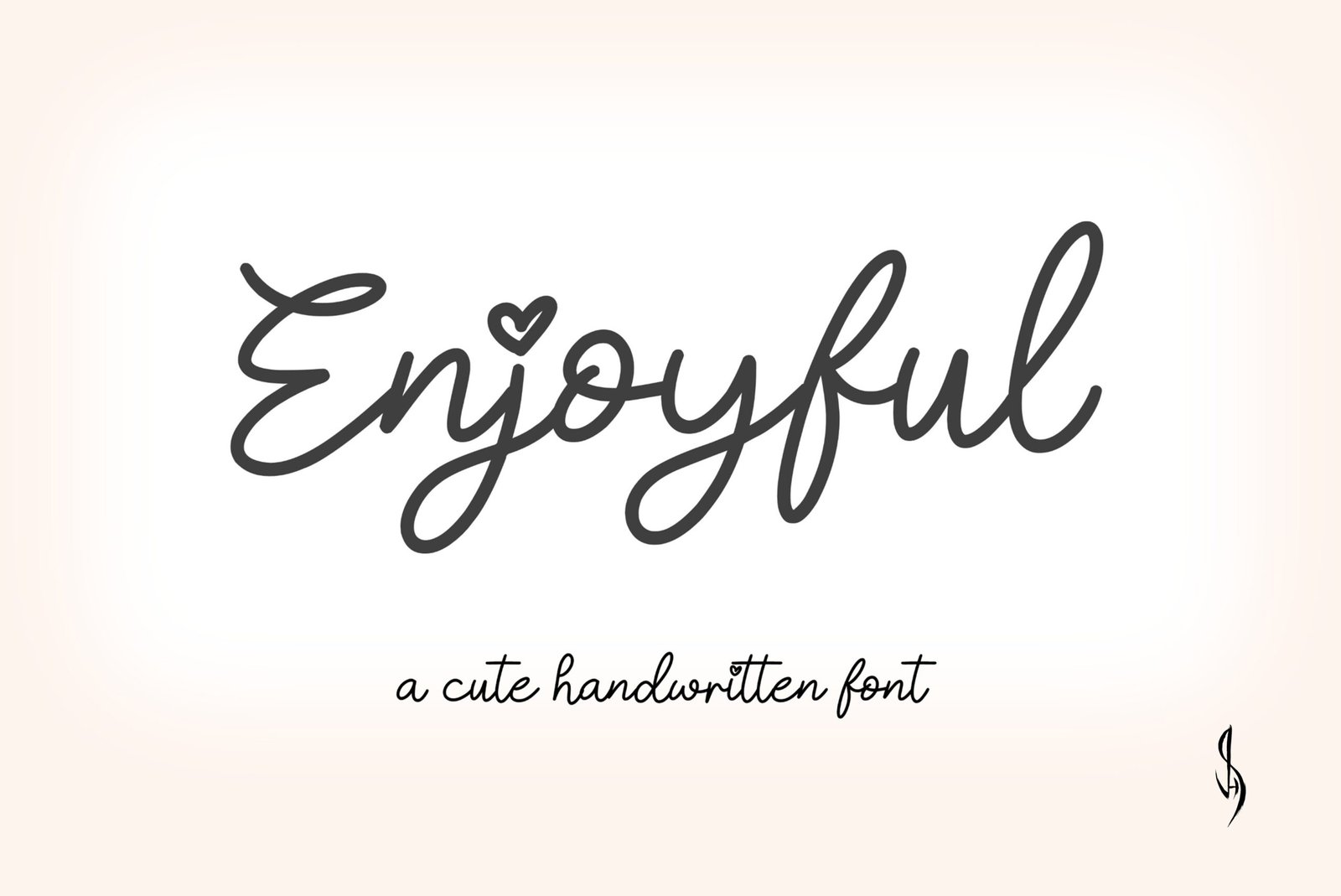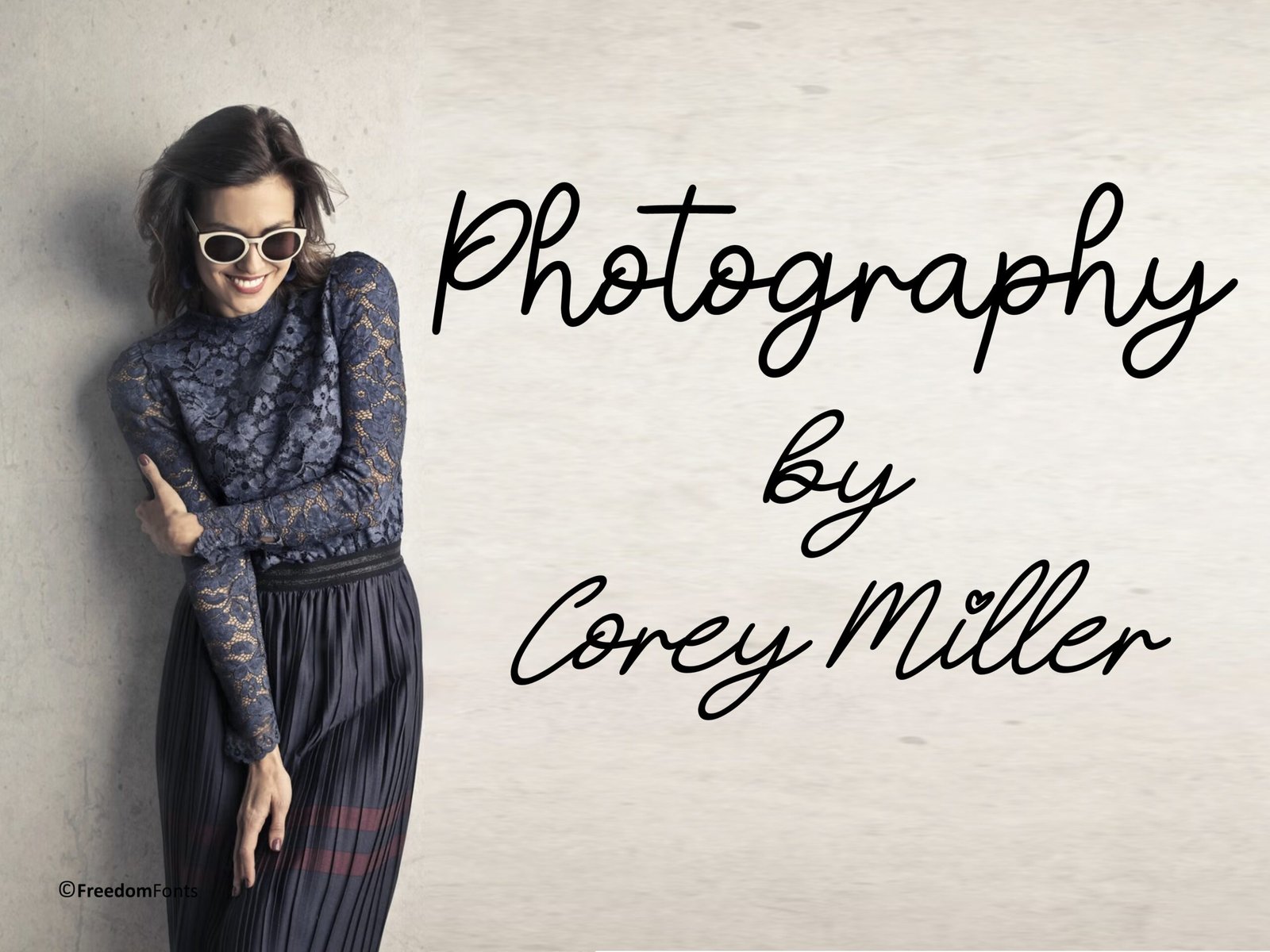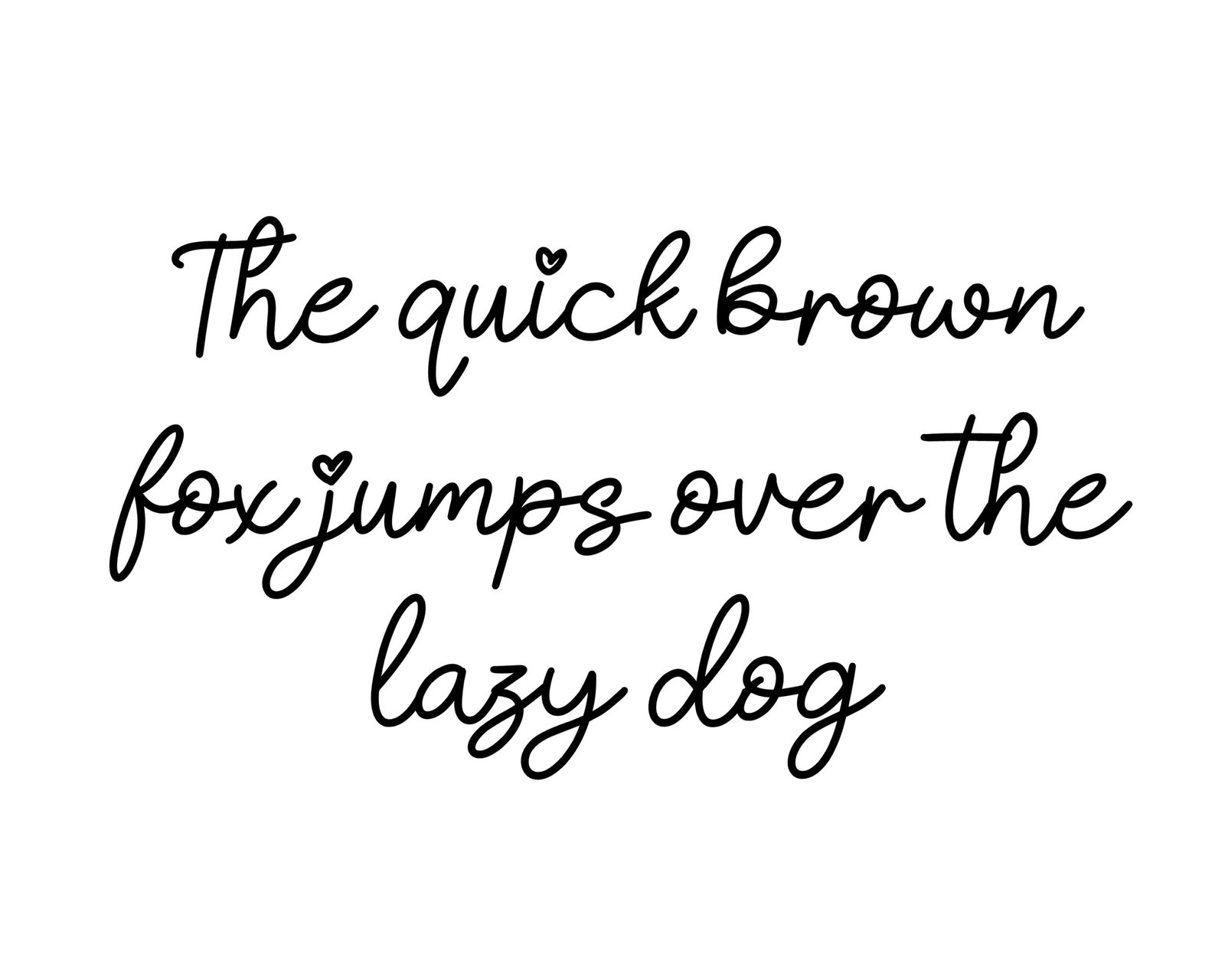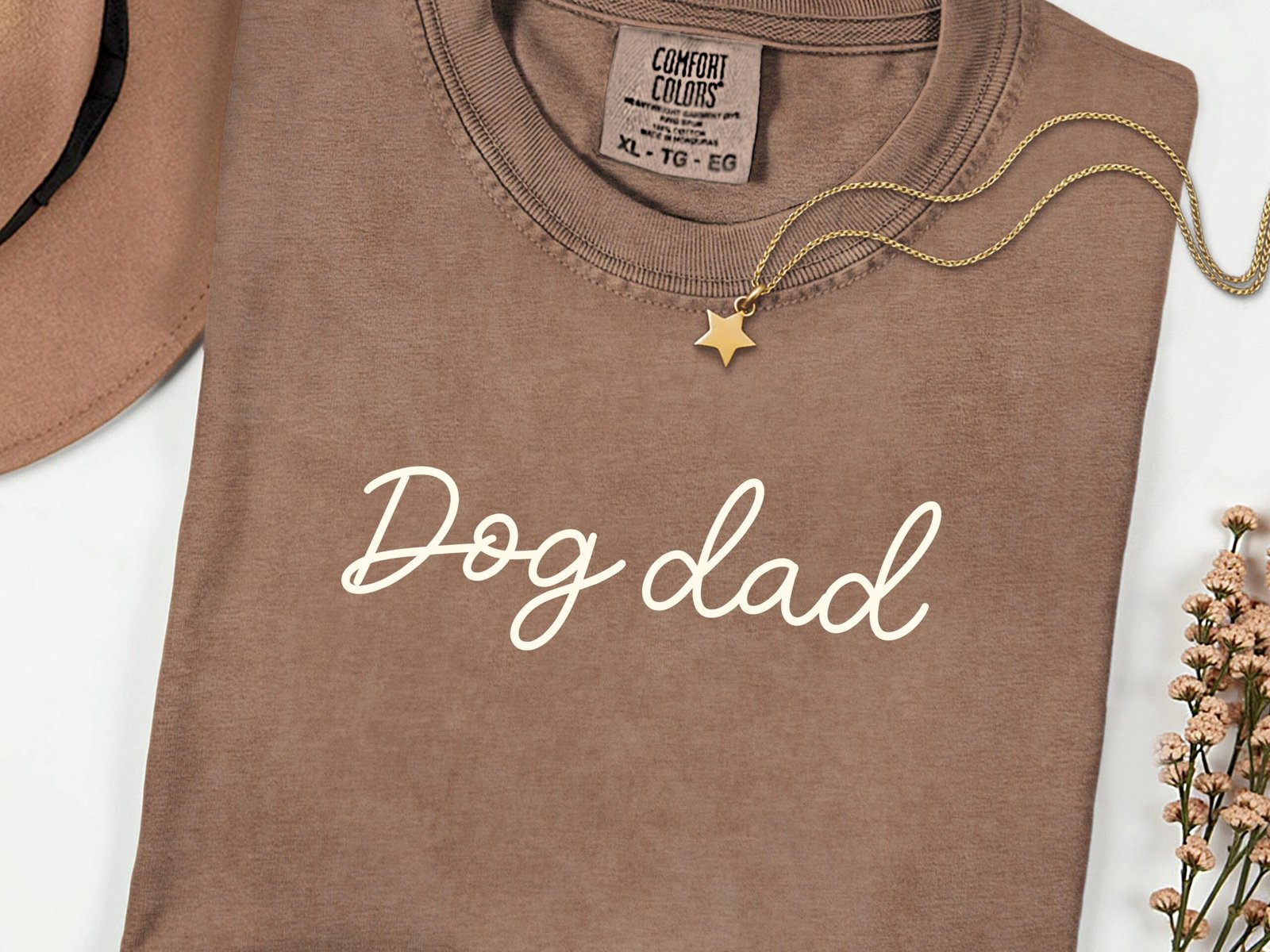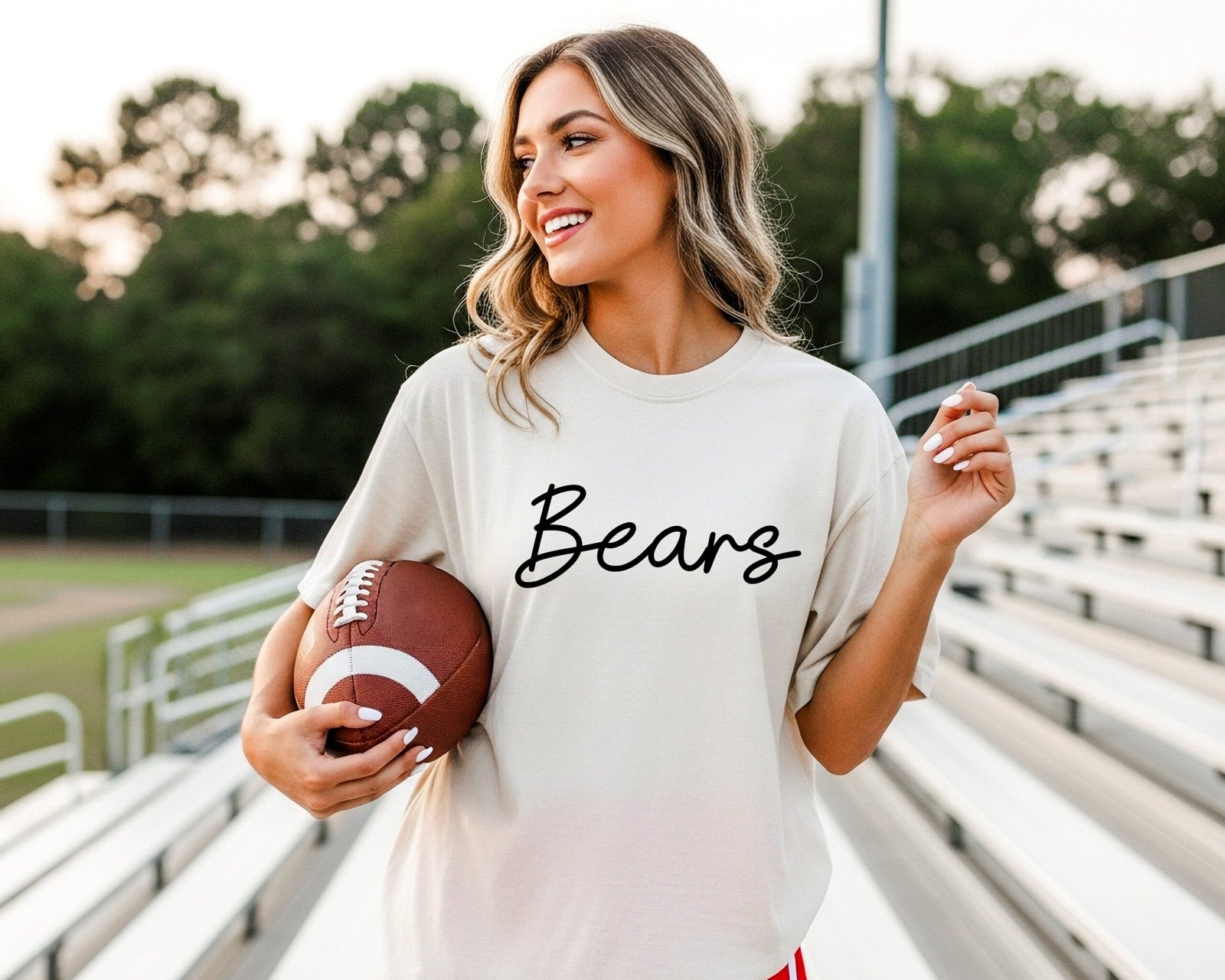
Enjoyful Font
Cute handwritten font. “Enjoyful”. Perfect for advertising and display purposes, including banners, book covers, shirts, posters, logos and much more!
Font includes all upper and lowercase letters, numbers, characters, punctuation and accent characters.